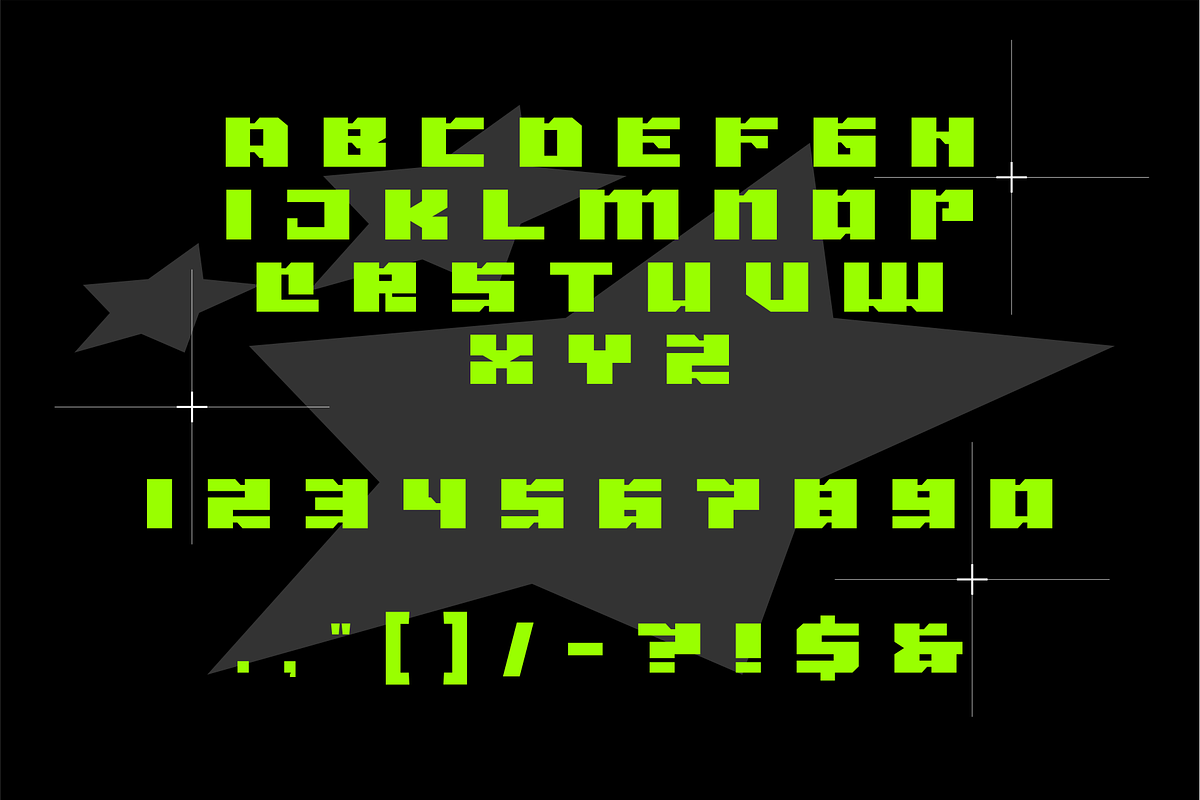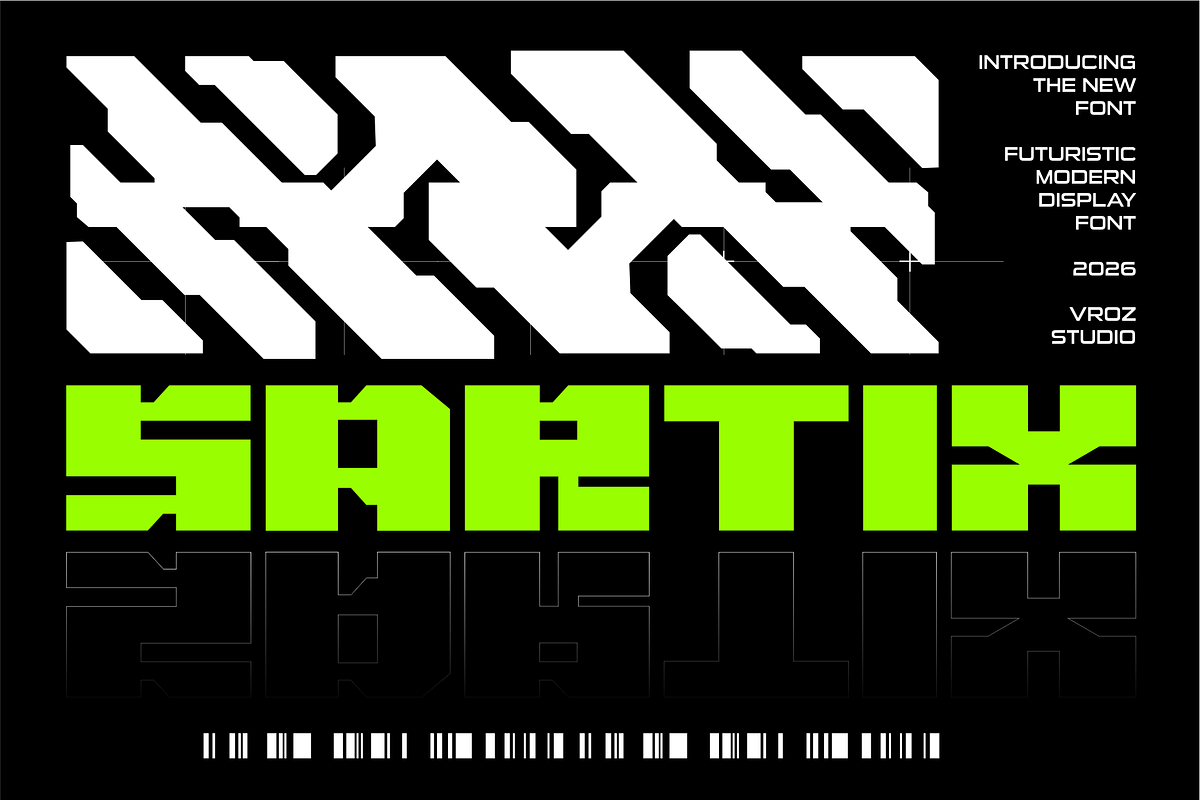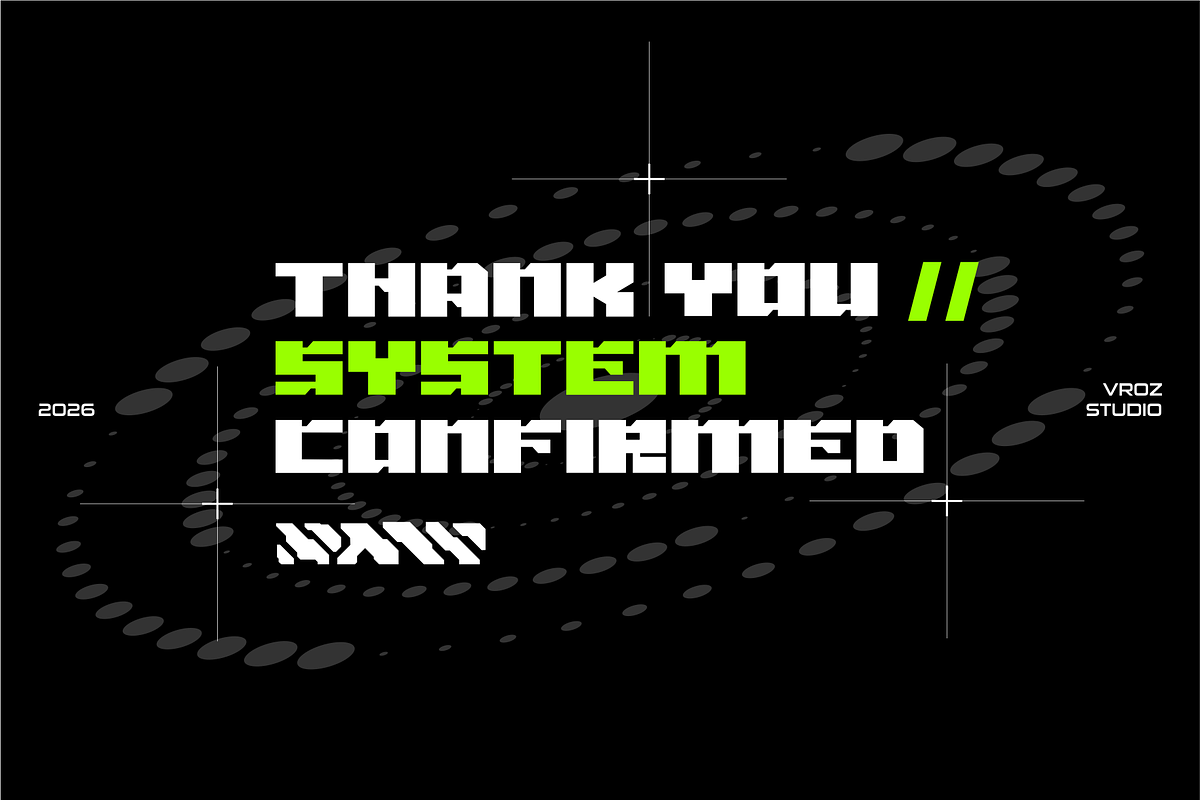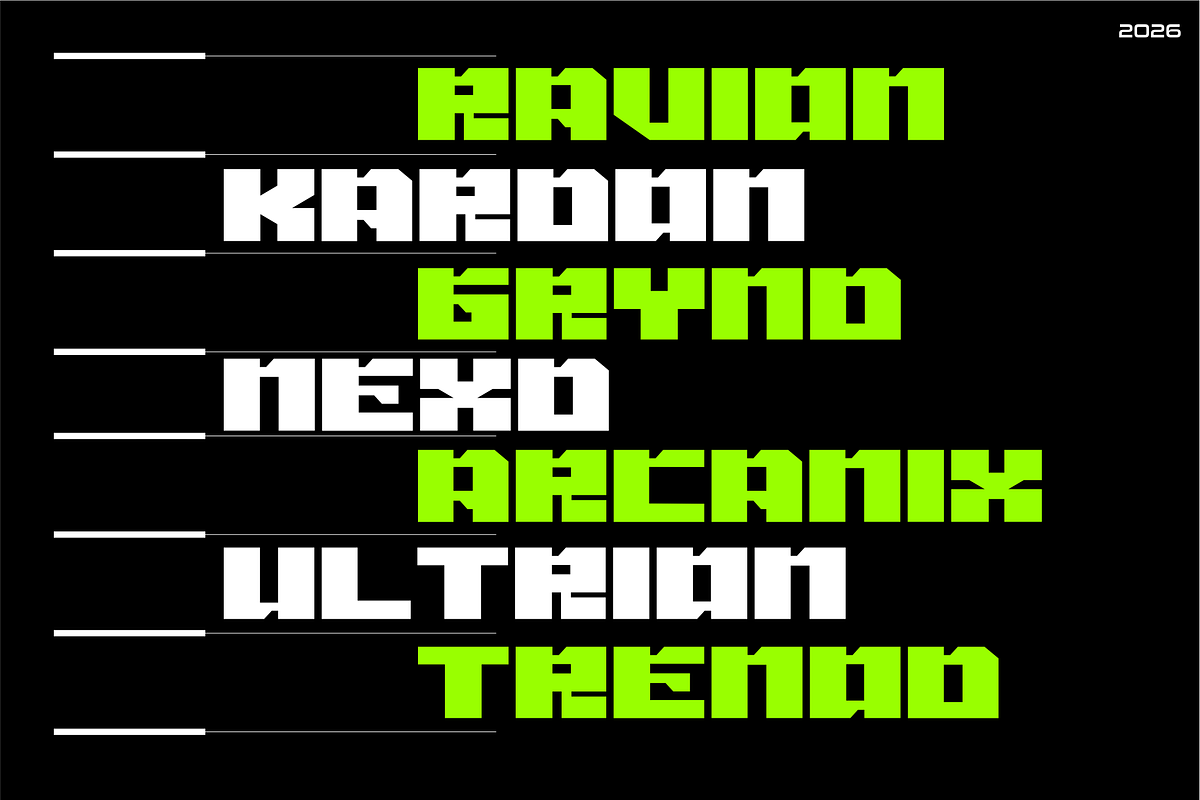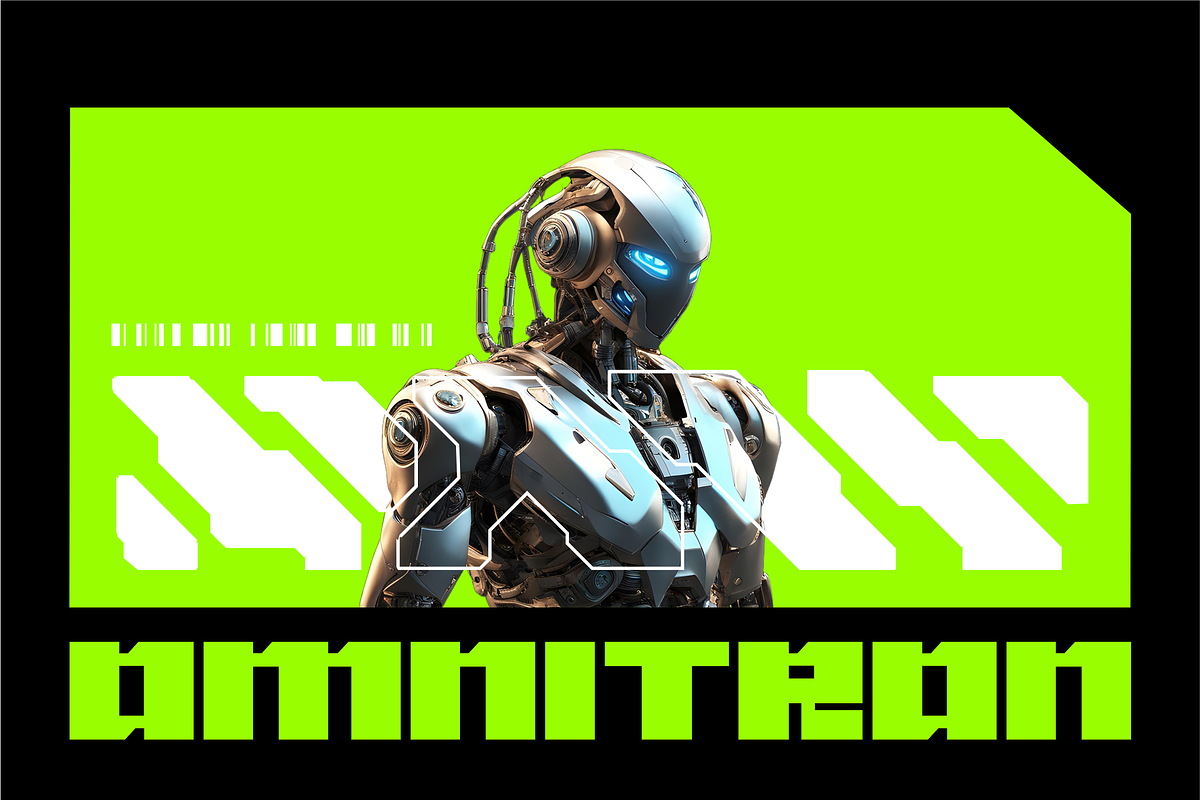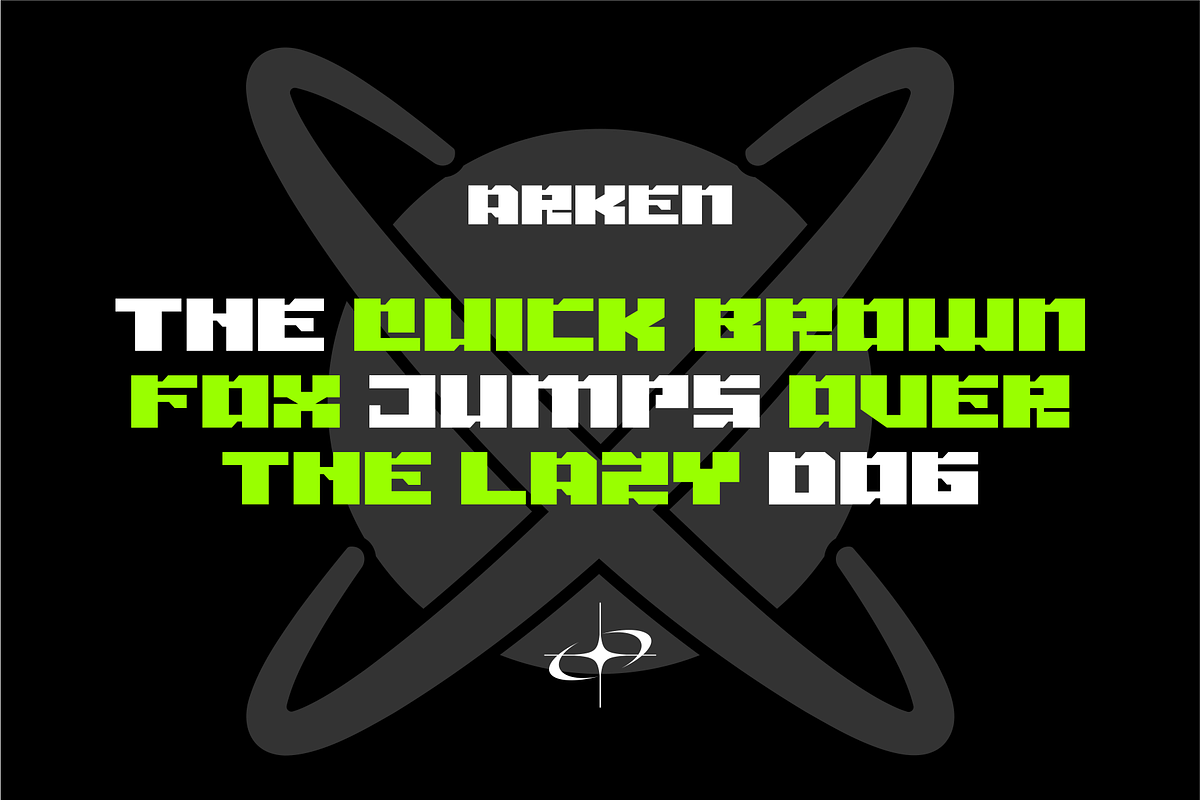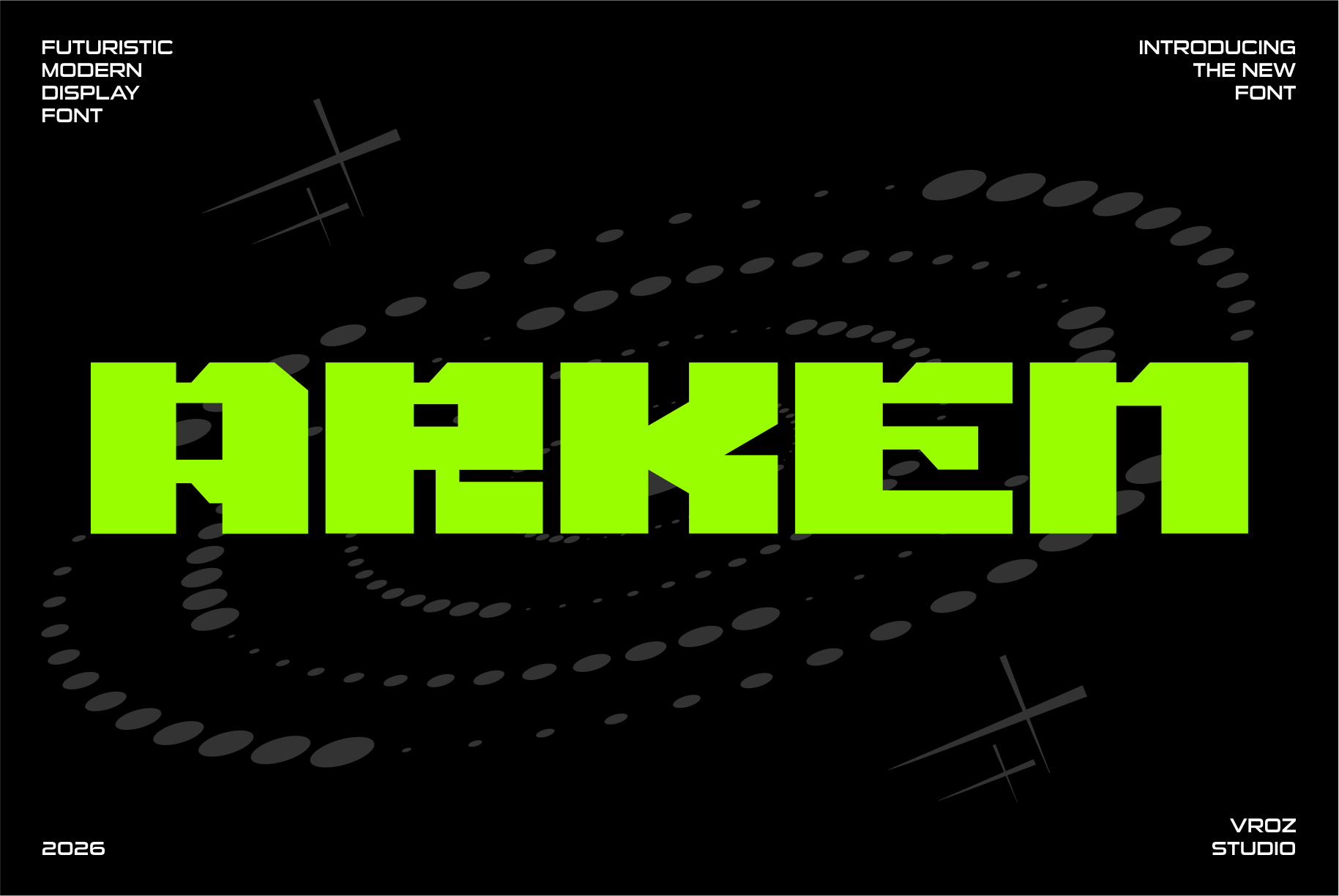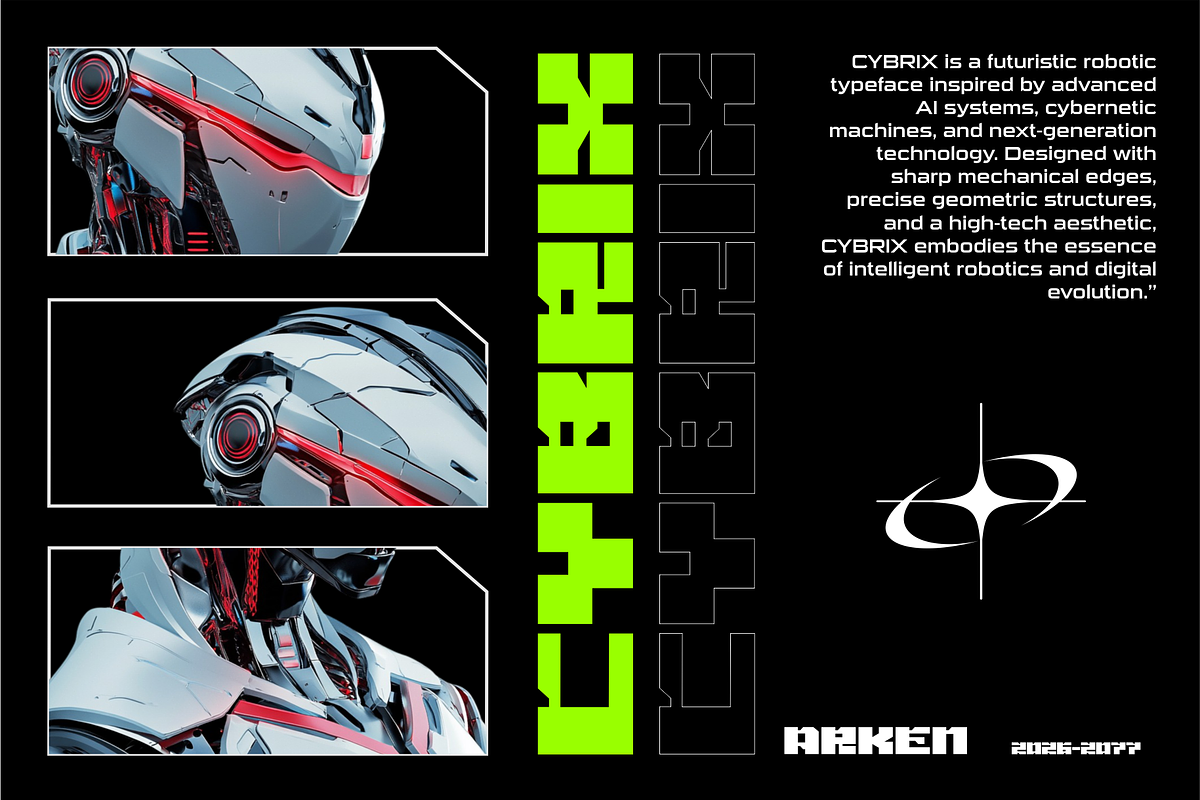
Arken – Modern Futuristic Font
Step into the cosmos with ARKEN, a display typeface that fuses robotic precision with the infinite allure of outer space. Designed for visionaries, engineers, and dreamers alike, ARKEN captures the mechanical beauty of advanced robotics and the mystery of interstellar exploration.
With its sharp edges, geometric balance, and bold futuristic structure, ARKEN channels the aesthetics of machines built for galaxies far beyond. It’s more than a font—it’s a design system born from the mechanics of innovation and the energy of cosmic technology.
Whether you’re designing for sci-fi worlds, tech startups, or space-age branding, ARKEN delivers a commanding presence that feels engineered for the future.
Ideal For:
- Futuristic & Sci-Fi Branding
- Gaming & Esports Logos
- Space Exploration Posters & Titles
- Modern UI, HUD, and Interface Graphics
- Movie Titles, Album Covers & Concept Art
Command the future. Build your universe with ARKEN.